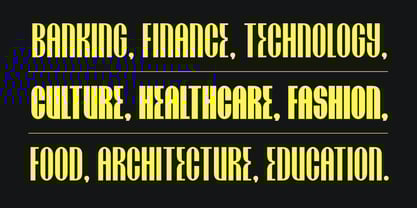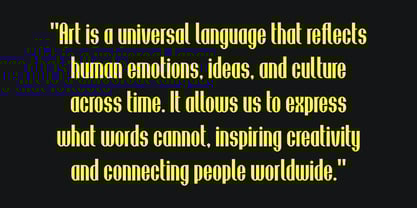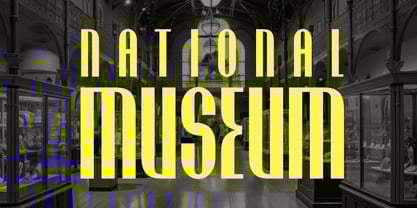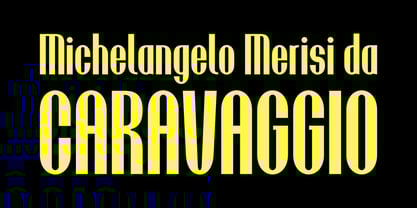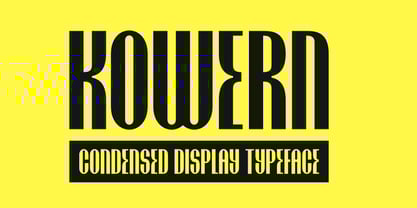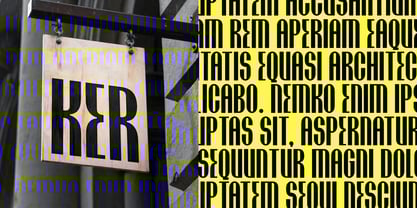
Kowern
by ESEM Type
The Kowern Font Family was designed by Szymon Mandziarz and published by ESEM Type. Kowern contains 2 styles and family package options.
Kowern is a modern and condensed font with a distinct look with experimental touches that give it an original look. It will work as a universal font for projects with a wide range of topics.
Designers: Szymon Mandziarz
Publisher: ESEM Type
Foundry: ESEM Type
Design Owner: ESEM Type
An independent font foundry that was created out of passion for typography and creative needs. The founder and author is Szymon Mandziarz. The beginnings of letter design began many years ago with graffiti. The foundry focuses on the production of modern, unique typefaces with a clear form and details that attract attention. The font foundry aims at providing its customers with high quality fonts that stand out with their original style.